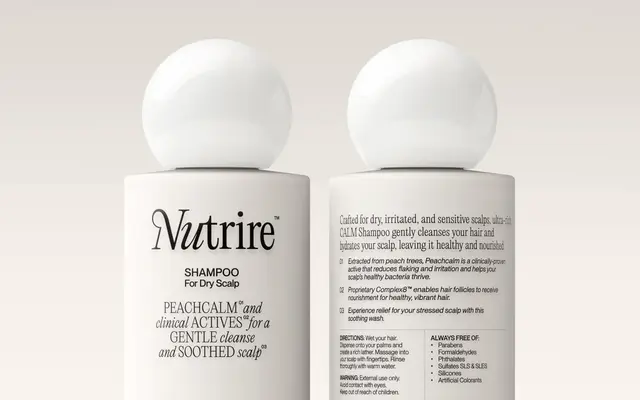
Editorial New
A narrow, high-contrast serif by Mat Desjardins and Francesca Bolognini, built for long-form editorial layouts with enough personality to hold its own as a display face.
Sixteen styles span eight weights from Thin to Heavy, each with a matching italic, and the family ships as a variable font. The narrow proportions suit column-based editorial work, while the heavier weights and expressive italics lend themselves to headlines and pull quotes. Its mid-1990s editorial reference sits comfortably in fashion, beauty and lifestyle publishing contexts.
A narrow serif with moderate contrast and curvaceous italics, designed primarily for long-form editorial use. Its proportions and contrast lean toward a transitional or contemporary editorial serif idiom.